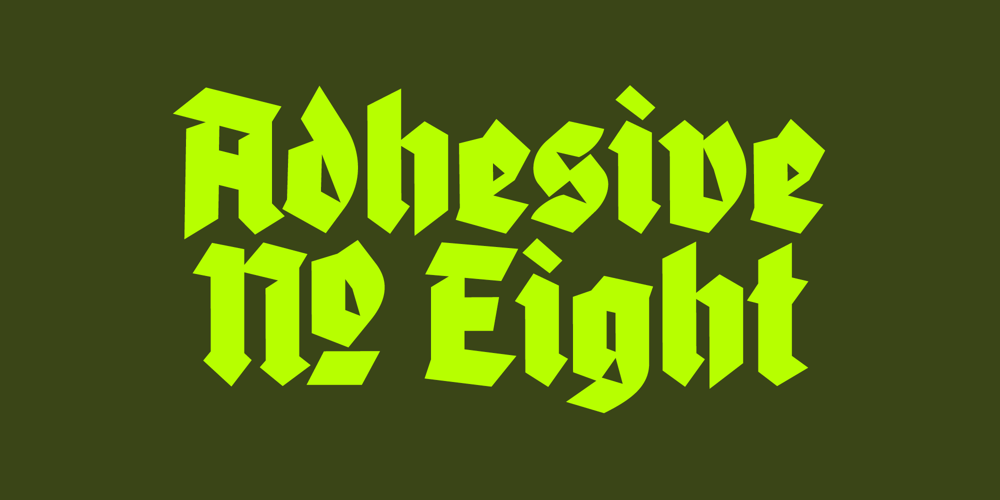
Adhesive Nr. Eight Font Family was designed by Roland Hörmann and published by phospho. Adhesive Nr. Eight contains 1 styles and family package options. Adhesive Nr. Eight was developed as a streamlined variation of the heavily textured Adhesive Nr. Seven blackletter font, responding to frequent requests for a clean, minimalist version. The foundation remains unchanged: adhesive tape construction, drawing on the Fraktur majuscules of Tannenberg Fett and the minuscules of Roberts Koch’s Schmale Deutsche Anzeigenschrift. In this reinterpretation, hard-to-read letters by modern standards (F, H, K, Z, k, long s, x, y, z) were reshaped with influences from grotesque typefaces. This transformation also makes the font uniquely suited for uses where blackletter typefaces typically fail — such as setting text in all capital letters.With its neutral, refined aesthetic, Adhesive Nr. Eight expands its versatility across a broader range of applications while staying true to the distinctive „Adhesive methodology“.